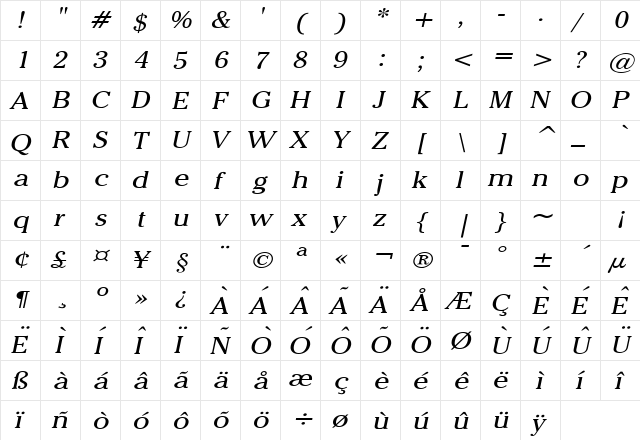
Chelsey Wide Italic
Design Context for Chelsey Wide Typeface
Chelsey Wide is a composed and adaptable typeface that performs quietly and consistently across a wide range of design contexts. The dynamic lean of this cut emphasises speed and emphasis in any layout.
Pro Tip: Use Chelsey Wide for emphasis, pull quotes, and subheadings where its slanted energy can add rhythm to the layout.